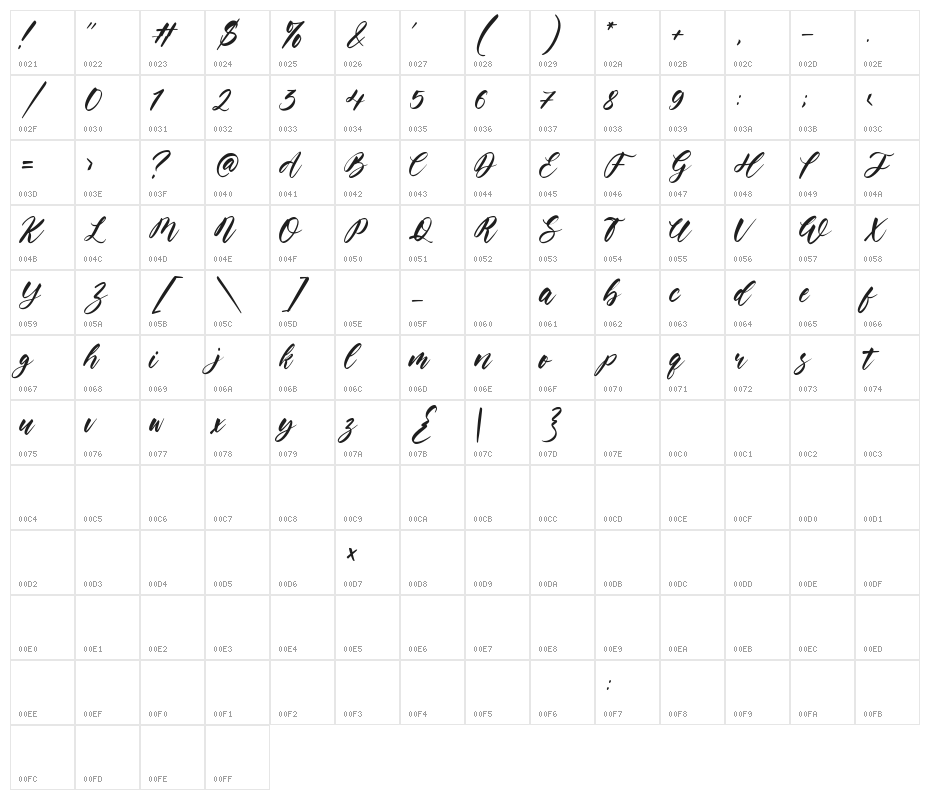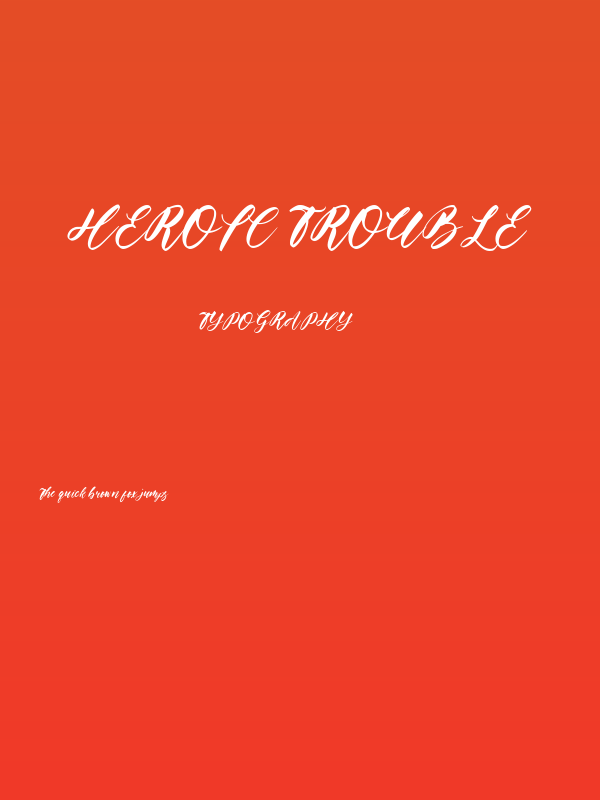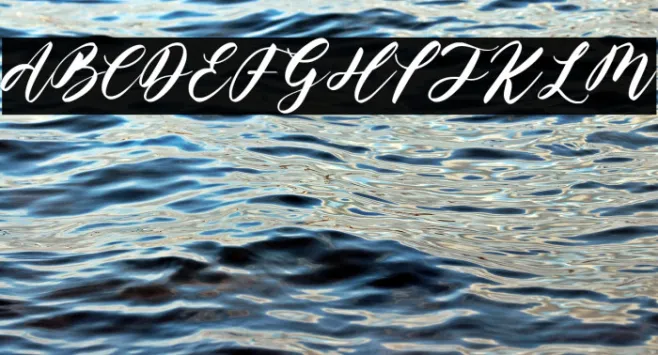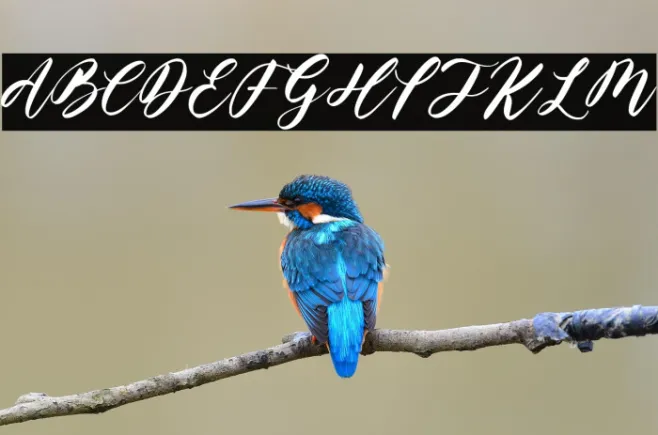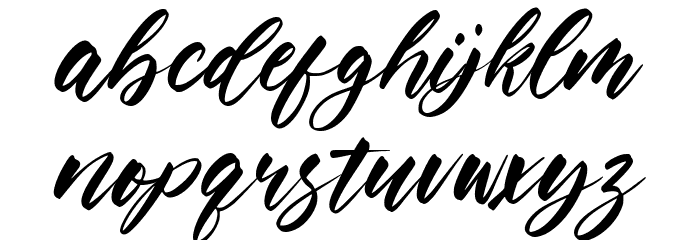
Heroic Trouble Font
Heroic Trouble Description
This font features a dynamic and flowing script style, characterized by its elegant and fluid strokes. The letters are interconnected, creating a sense of continuity and movement. The uppercase letters are bold and prominent, while the lowercase letters maintain a graceful and consistent flow. The numerals and special characters are designed to complement the overall script style, maintaining the same fluidity and elegance. The font's design is both expressive and versatile, making it suitable for a variety of creative applications.
| Proposed Projects | Ideal for wedding invitations, greeting cards, branding, and logo design, where a touch of elegance and personality is desired. |